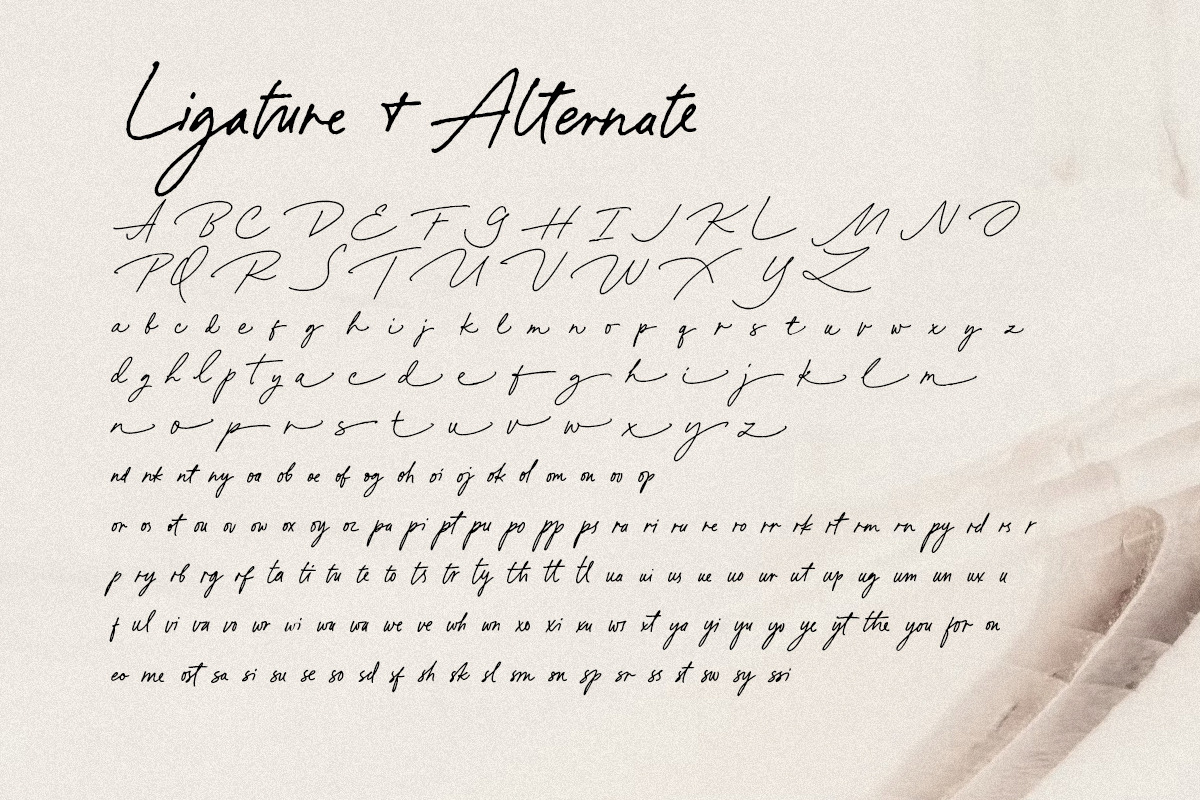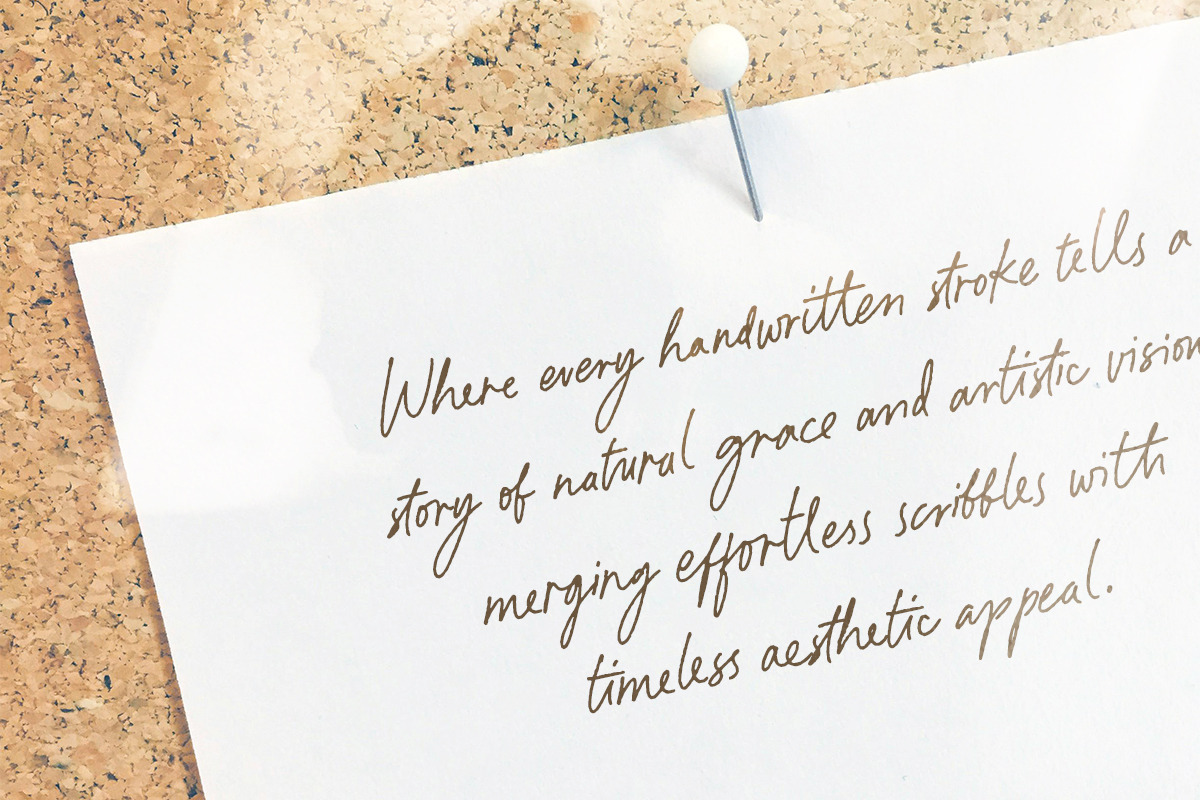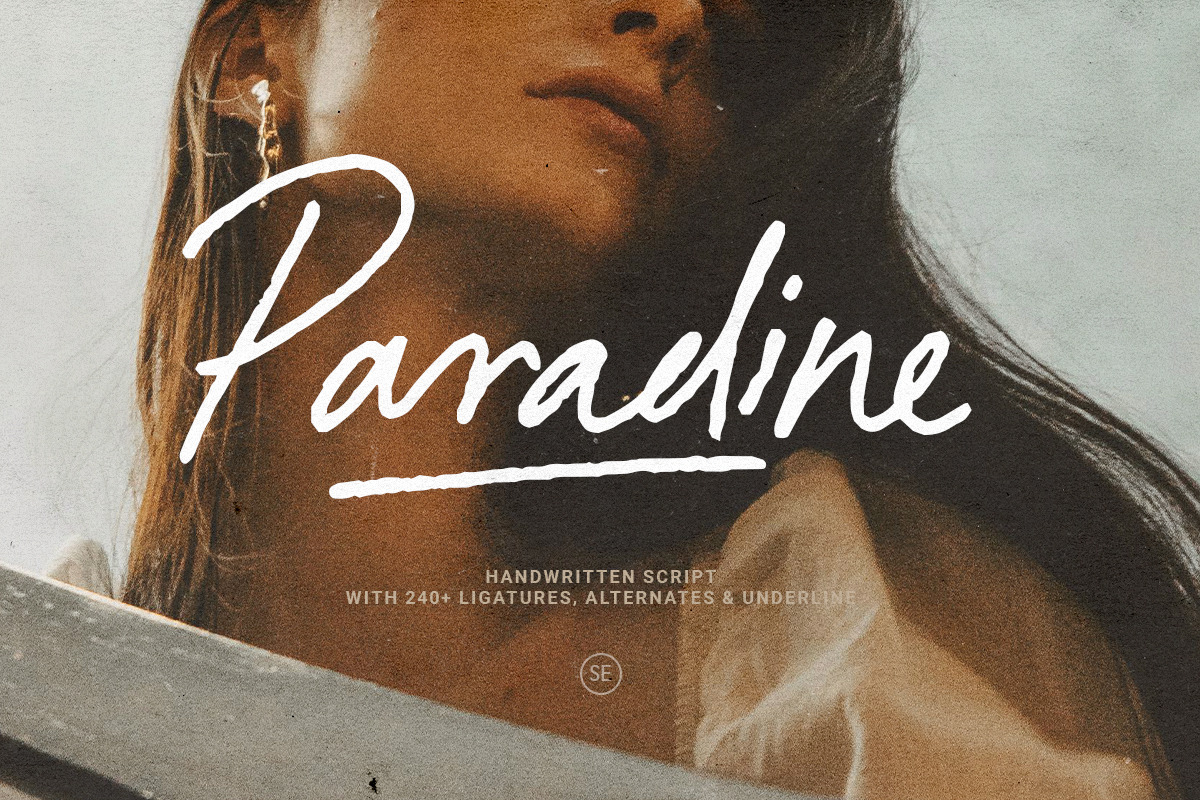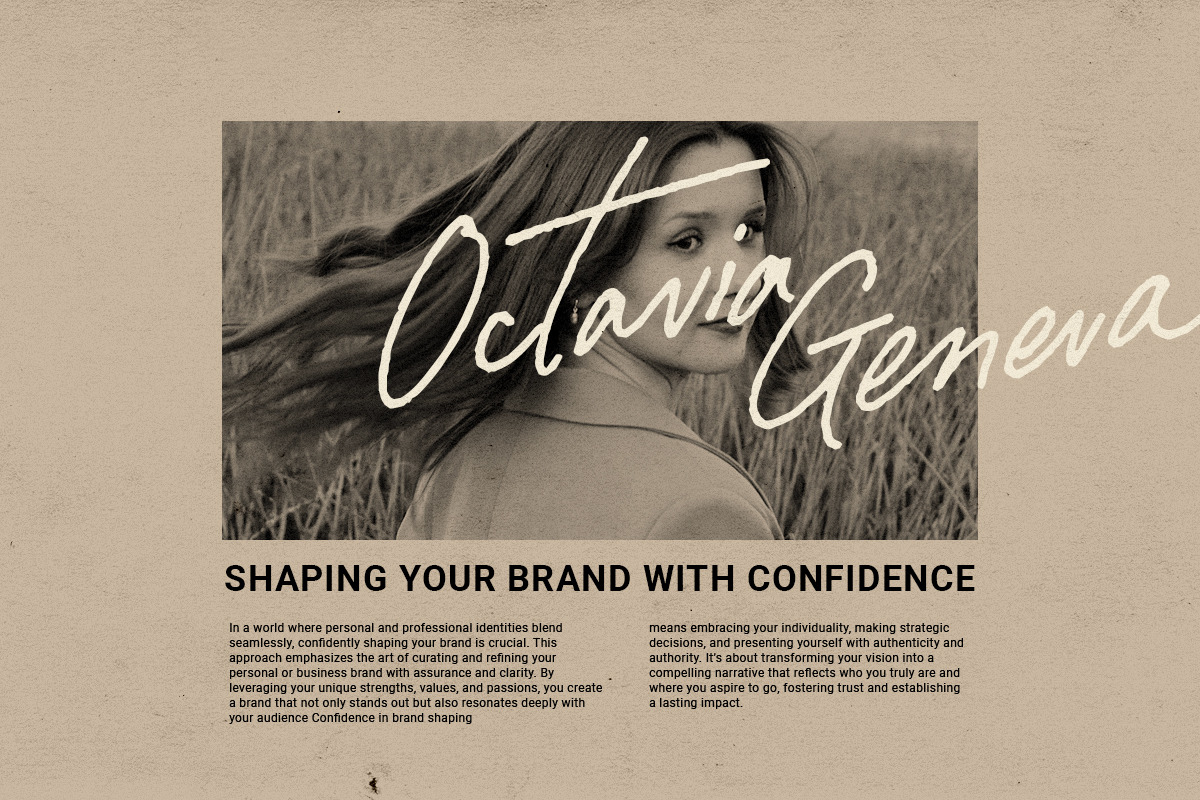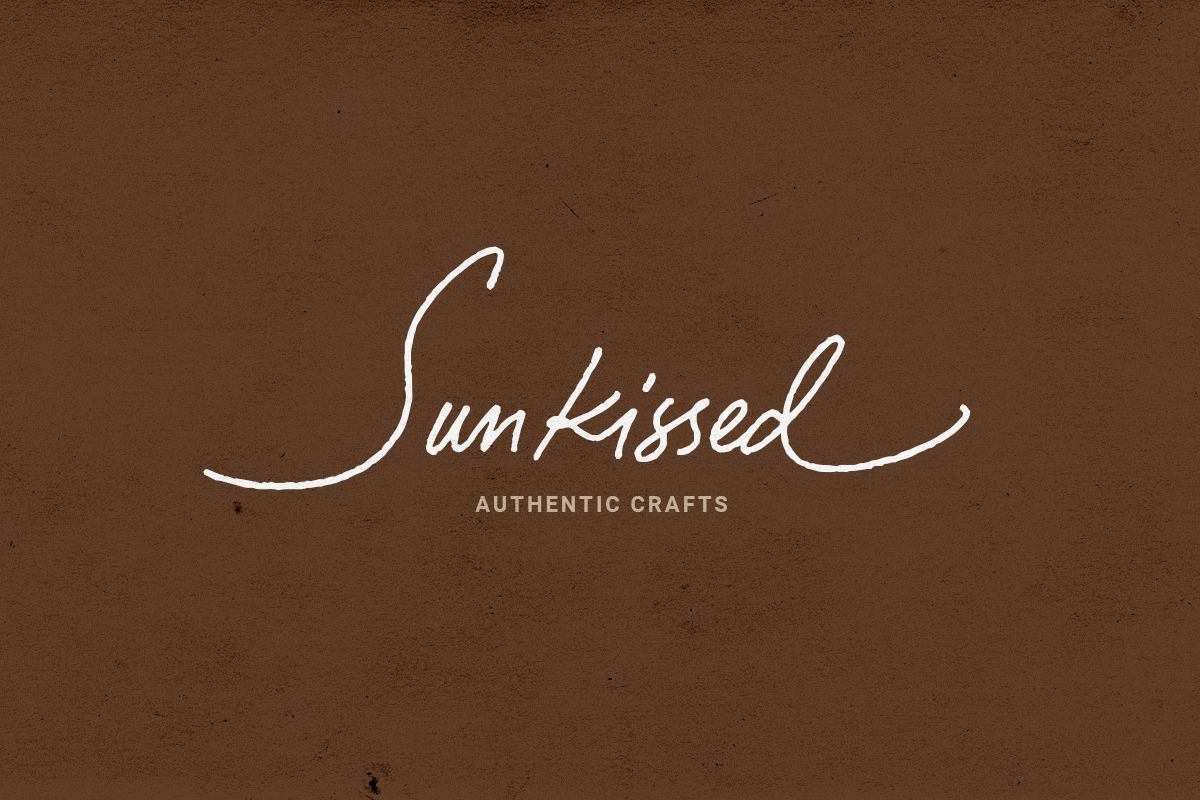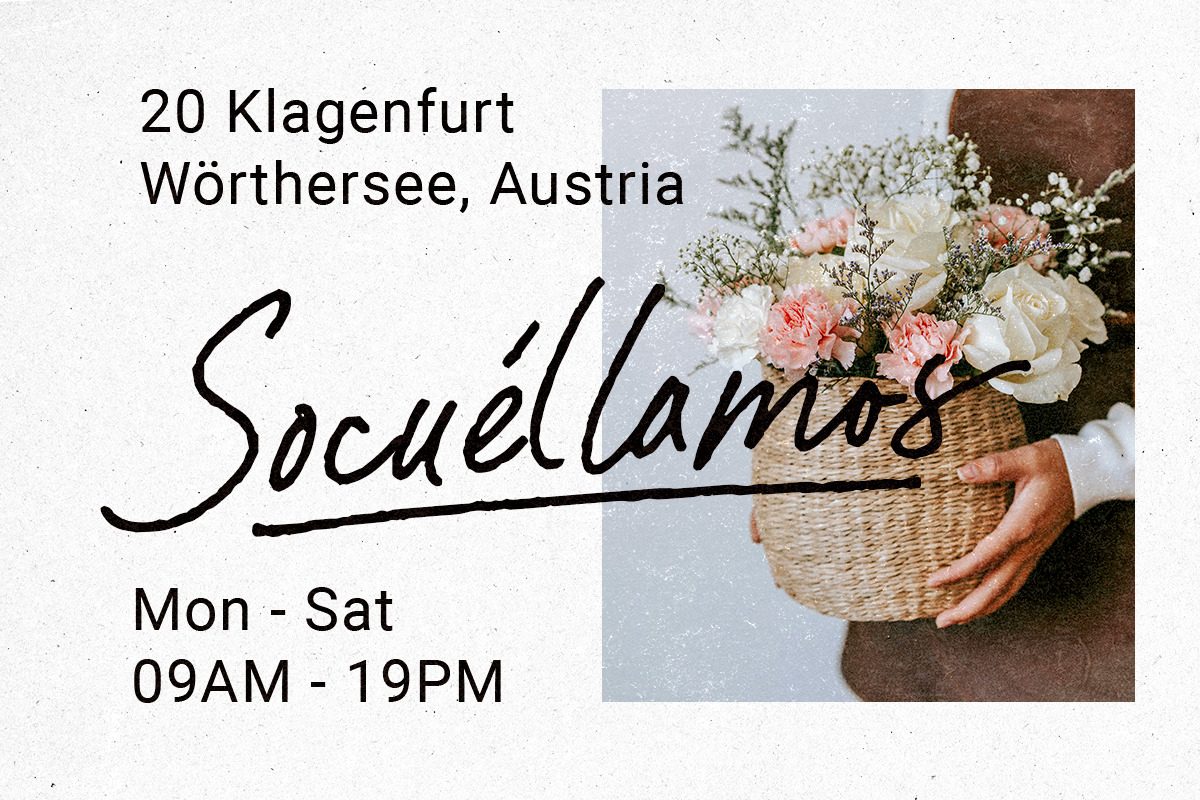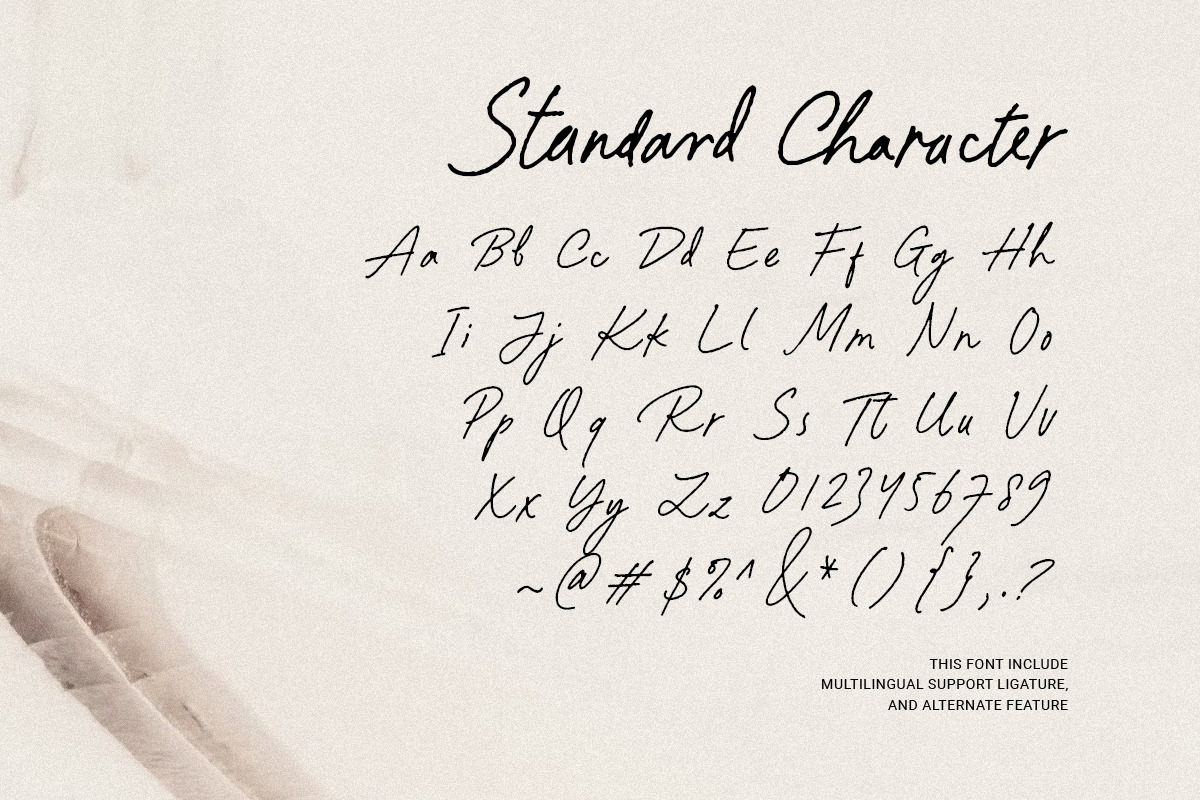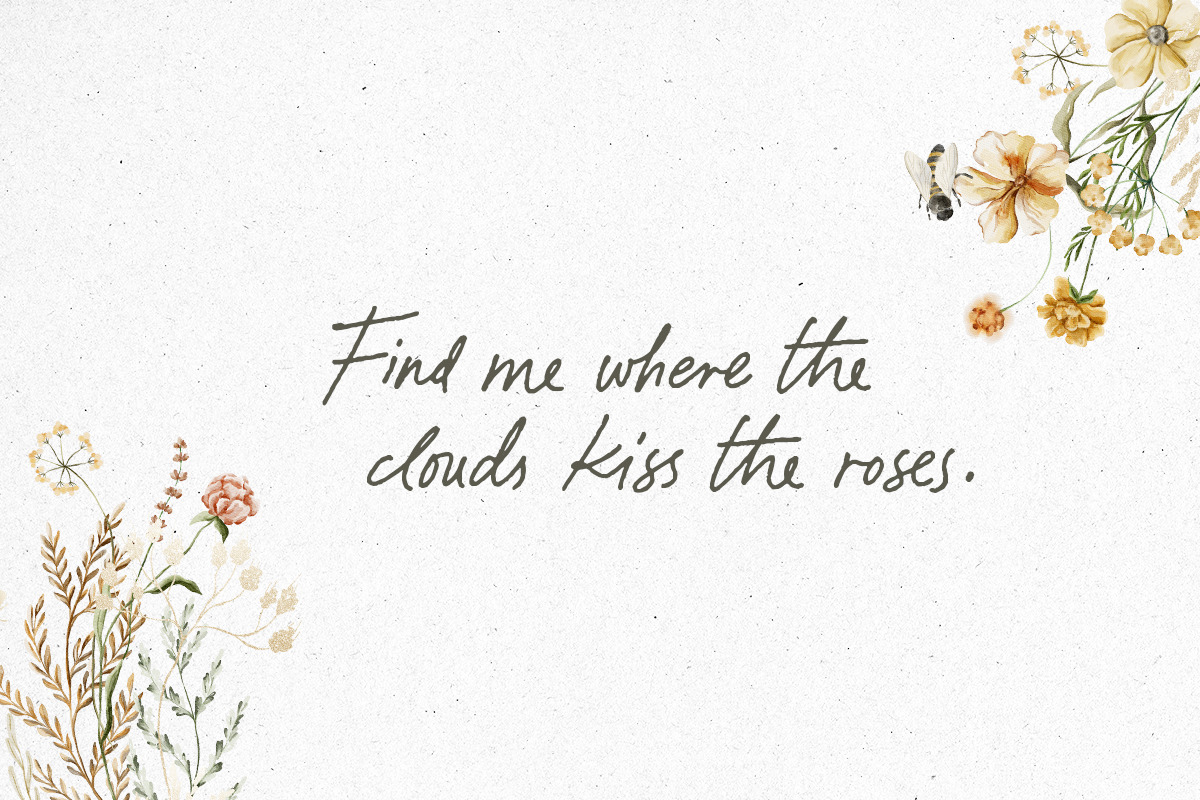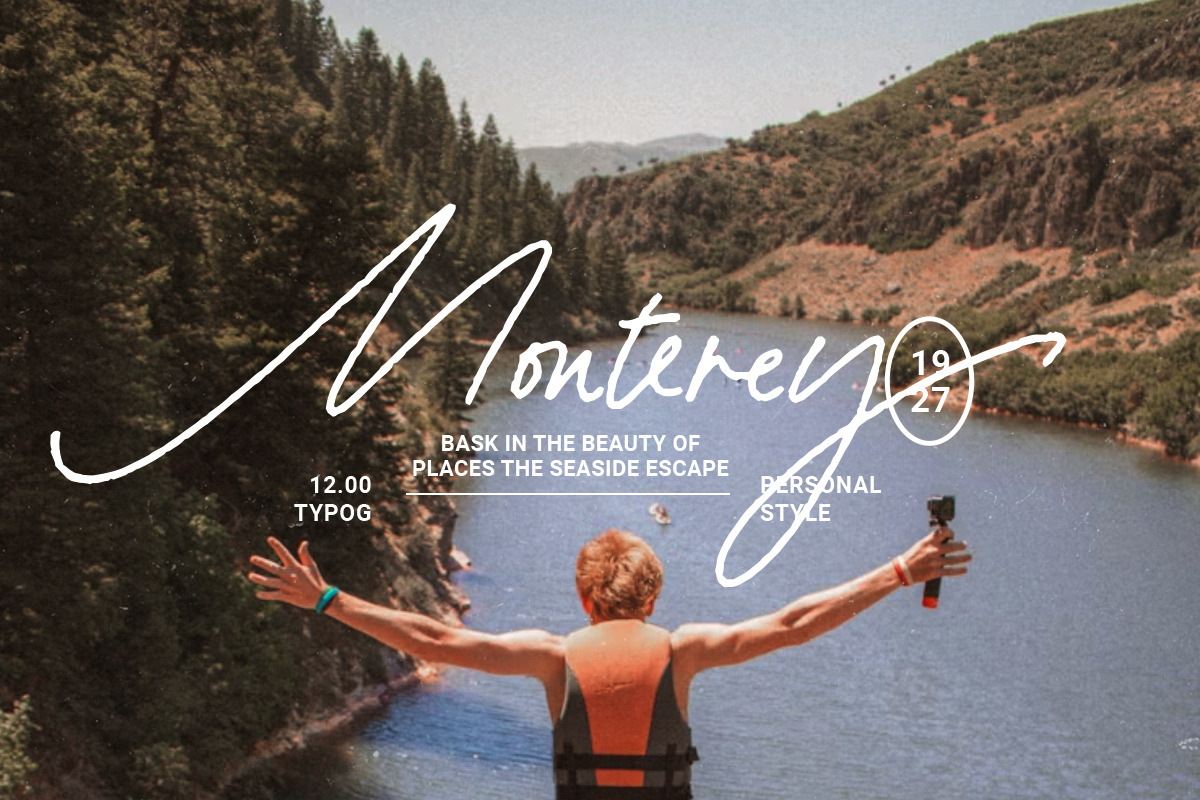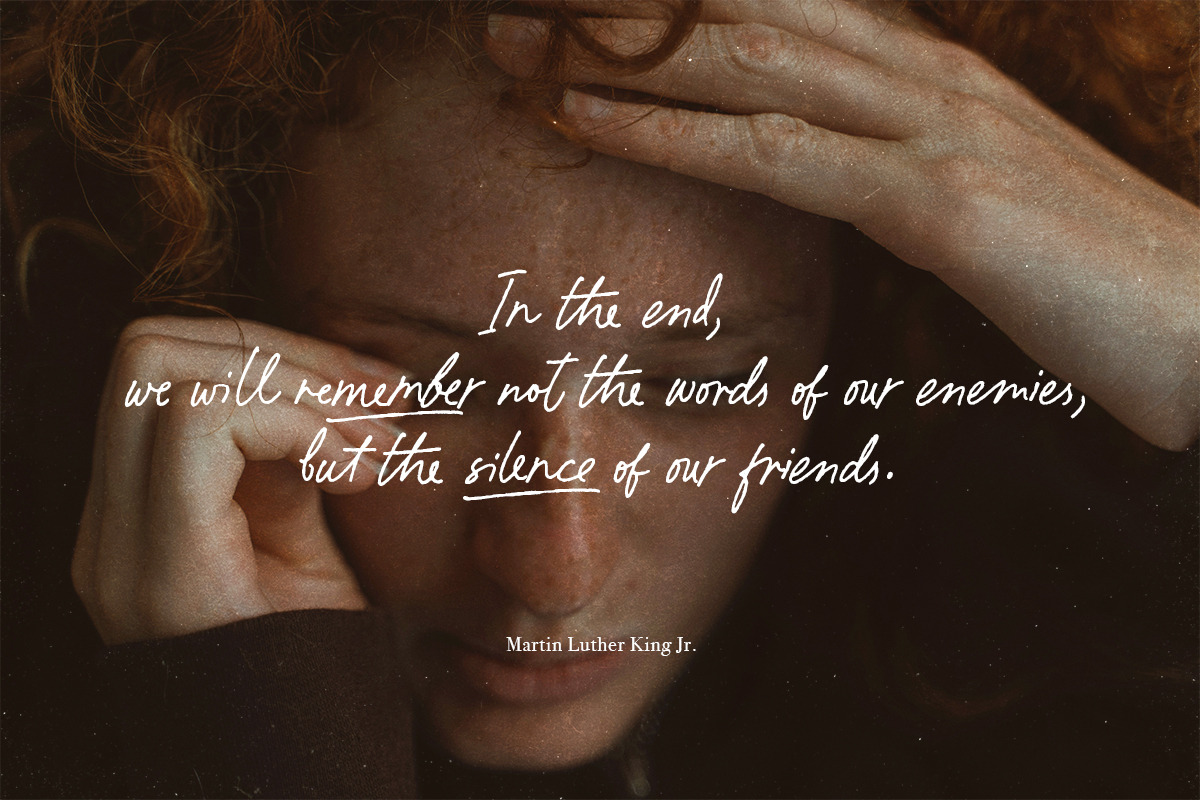
Paradine - Ligature Handwritten Font
Introducing, Paradine, a handwritten script font with alternate version and a lot of ligatures!
Paradine is a handwritten script with bunch of ligatures that will make your project looks more natural and made by hand. You can use this font for any purposes such as label, logo, handwritten quotes, wedding invitations and more. Paradine also have stylish alternates version that have different vibes that you can use for headline. This font also support multi language!